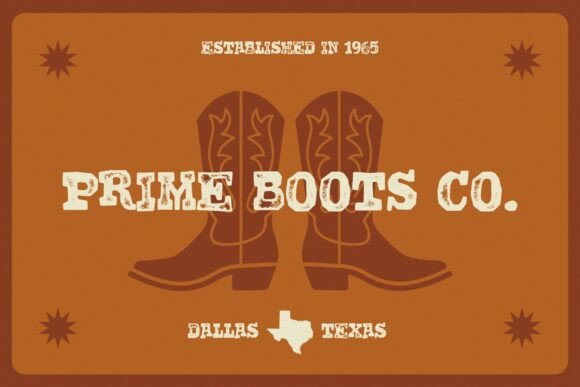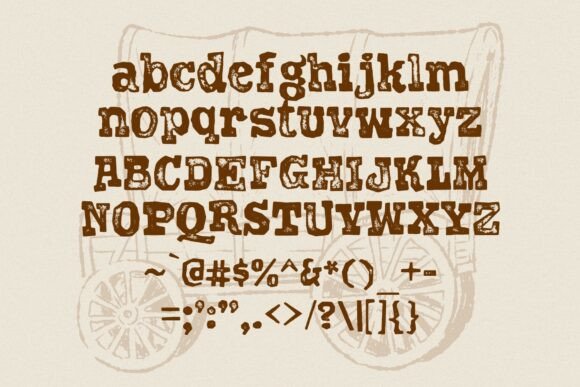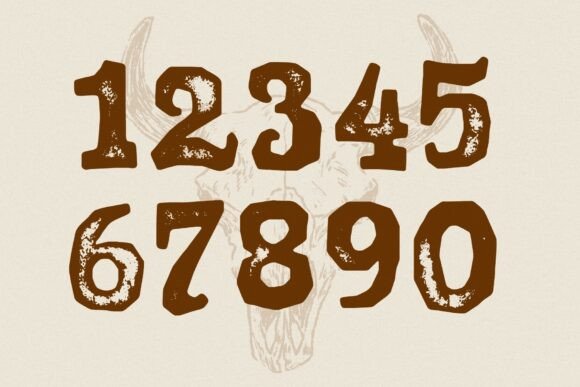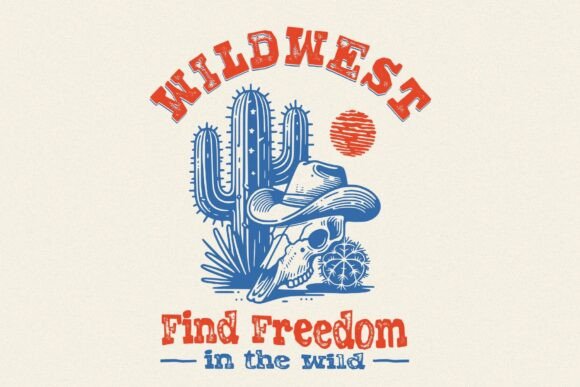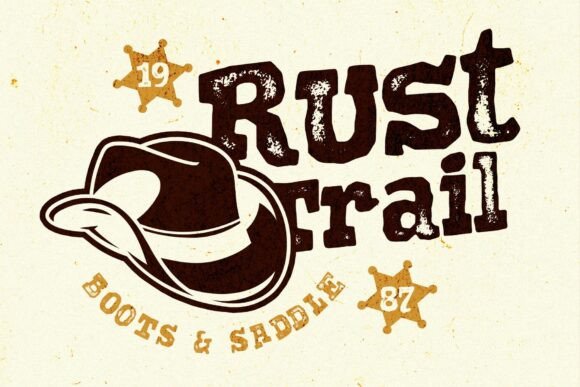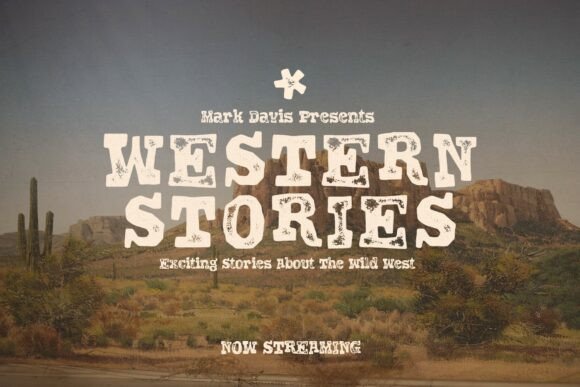
Dodgy Distort Font: Unleash the Wild West Spirit in Your Designs
Are you tired of using the same old fonts in your designs? Look no further than the Dodgy Distort font, a wildly charismatic Wild West typeface that brings the dust, grit, and swagger of the frontier to your fingertips. With its 803 glyphs and support for 104 languages, this font is the perfect addition to any design project that needs a touch of rugged authenticity.
The Perfect Blend of Visual Beauty and Rugged Authenticity
Dodgy Distort is more than just a font – it’s an experience. Its quirky, imperfect letters are full of old-world charm, giving your designs a unique and distinctive look that’s sure to stand out. The font features built-in texture that gives each letter a timeworn look, like it was printed on faded wanted posters or scrawled across a saloon sign battered by desert winds.
Key Features of Dodgy Distort Font
- 803 glyphs: With a vast range of glyphs, you can create complex and detailed designs that are sure to impress.
- Support for 104 languages: Whether you’re designing for a global audience or just want to add a touch of international flair to your project, Dodgy Distort has got you covered.
- Built-in texture: Give your designs a worn, vintage look that’s perfect for creating authentic Wild West-inspired artwork.
- Quirky, imperfect letters: Add a touch of personality to your designs with letters that are full of character and charm.
Dodgy Distort is the perfect font for designers and crafters who want to add a touch of Wild West flair to their projects. Whether you’re creating:
- Logos and branding: Stand out from the crowd with a unique and memorable logo that captures the spirit of the Wild West.
- Signs and posters: Create eye-catching signs and posters that look like they were printed on vintage wanted posters.
- Packaging and labels: Add a touch of rugged authenticity to your packaging and labels with a font that’s perfect for crafters and makers.
- Digital art and illustrations: Bring your digital art to life with a font that’s full of character and personality.
Tips for Using Dodgy Distort Font
To get the most out of Dodgy Distort, try the following tips:
- Experiment with different sizes and colors: Find the perfect combination to bring out the unique character of the font.
- Pair with other fonts: Combine Dodgy Distort with other fonts to create a unique and eye-catching design.
- Use the built-in texture to your advantage: Emphasize the worn, vintage look of the font to add depth and character to your designs.